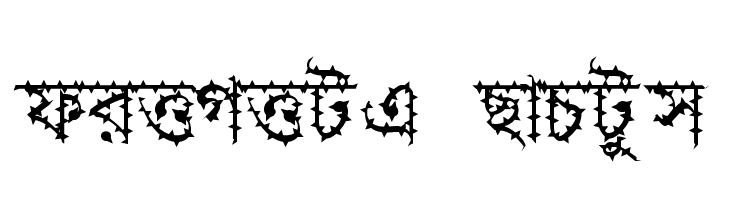
A playful, hand-drawn font with a whimsical and informal style.
A decorative serif font with playful swirls and bold characters.
A bold, three-dimensional font with deep shadows for a dramatic effect.
An ornate, flourished font with high contrast and elegant calligraphic style.
( Fonts by Abstract Type Design - Patrick Durr )
A chaotic, thorn-like decorative font with sharp, jagged embellishments.
A calligraphic, artistic font with flowing, interconnected strokes and a light, elegant appearance.
( Fonts by Renn Crump - http://moorstation.org/typoasis/designers/renncrump/ )
A highly legible, modern serif font designed for comfortable reading.